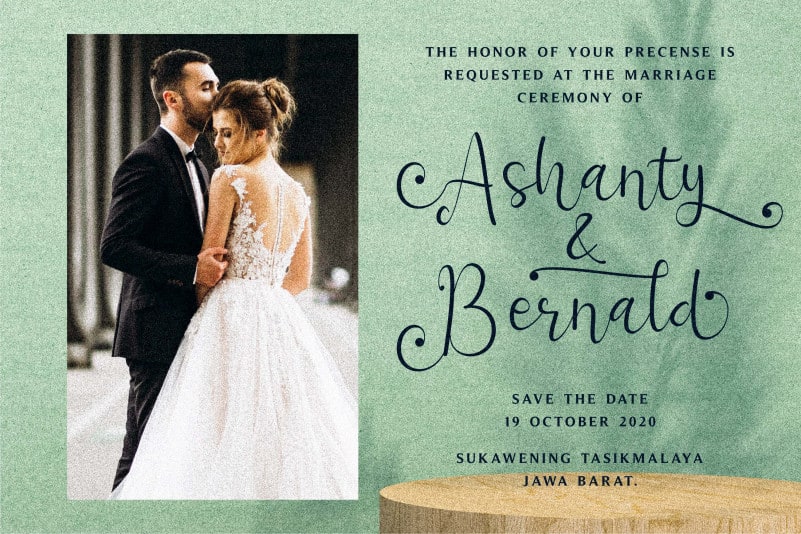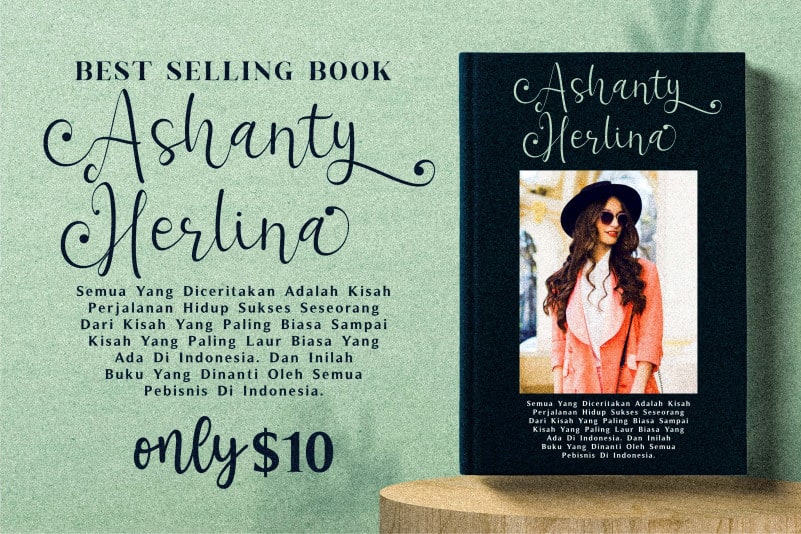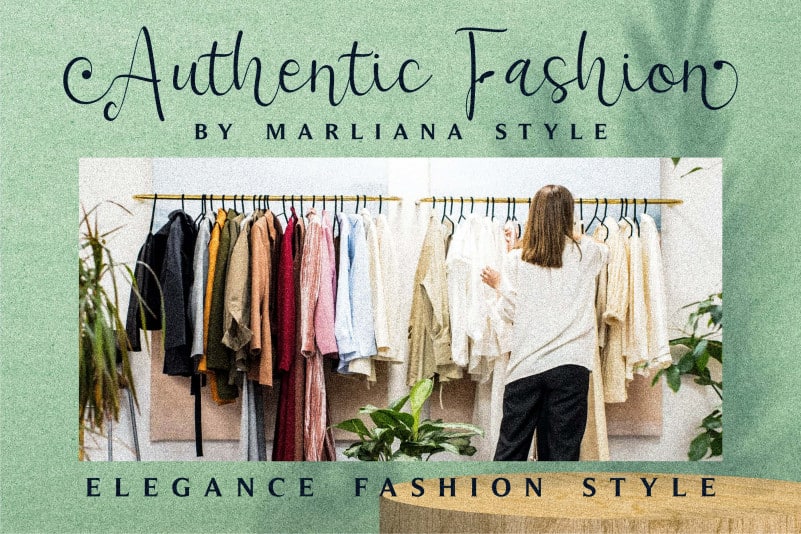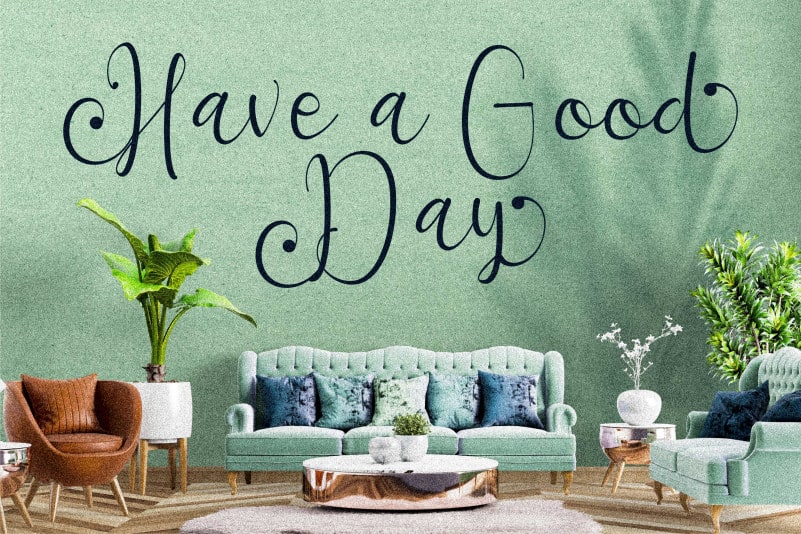
Ashanty Herlina Script Font
Ashanty Herlina Script Font is a cute and quirky script font. Add it to your most creative ideas and notice how it makes them come alive!